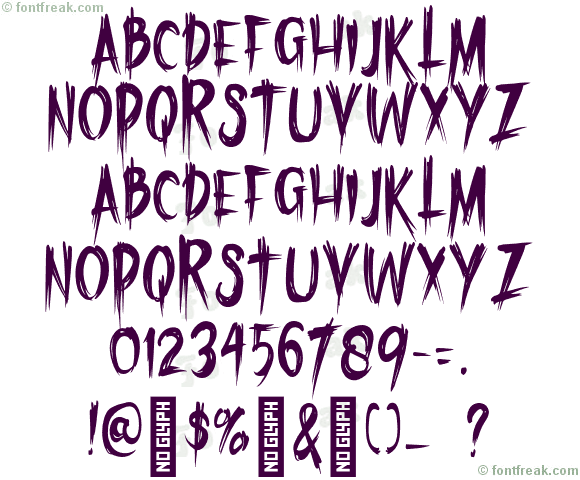
Friday Terror
About Friday Terror
Friday Terror by Syaf Rizal is a captivating display font that embodies a bold and edgy aesthetic. This typeface features sharp, jagged strokes that evoke a sense of urgency and excitement, making it a perfect choice for projects that require a striking visual impact. The uneven stroke weight and high contrast between thick and thin lines add a dynamic quality, while the unique spacing creates an engaging rhythm that captures attention. Its decorative elements, reminiscent of horror and thrill, contribute to its overall dramatic flair.
This font is particularly well-suited for a variety of creative uses. Its dramatic style makes it an excellent choice for movie posters, especially in the horror or thriller genres. Graphic designers looking to create eye-catching promotional materials will find it ideal for album covers or event flyers. Additionally, Friday Terror can add a unique touch to restaurant menus, especially those with a themed or avant-garde concept. Small business owners aiming to stand out in a crowded market can leverage this font for branding elements, ensuring their presence is memorable. Content creators can also utilize this font in social media graphics or digital art to enhance visual storytelling.
Targeted primarily at graphic designers, small business owners, and content creators, Friday Terror provides a distinctive option for those looking to make a statement with their typography. The font’s unique character and energetic design make it stand out in a sea of conventional typefaces. Whether you’re crafting a high-impact visual for a campaign or simply looking to add flair to your project, the Friday Terror font free download is an opportunity not to be missed. Its boldness and creativity ensure that any project will leave a lasting impression.